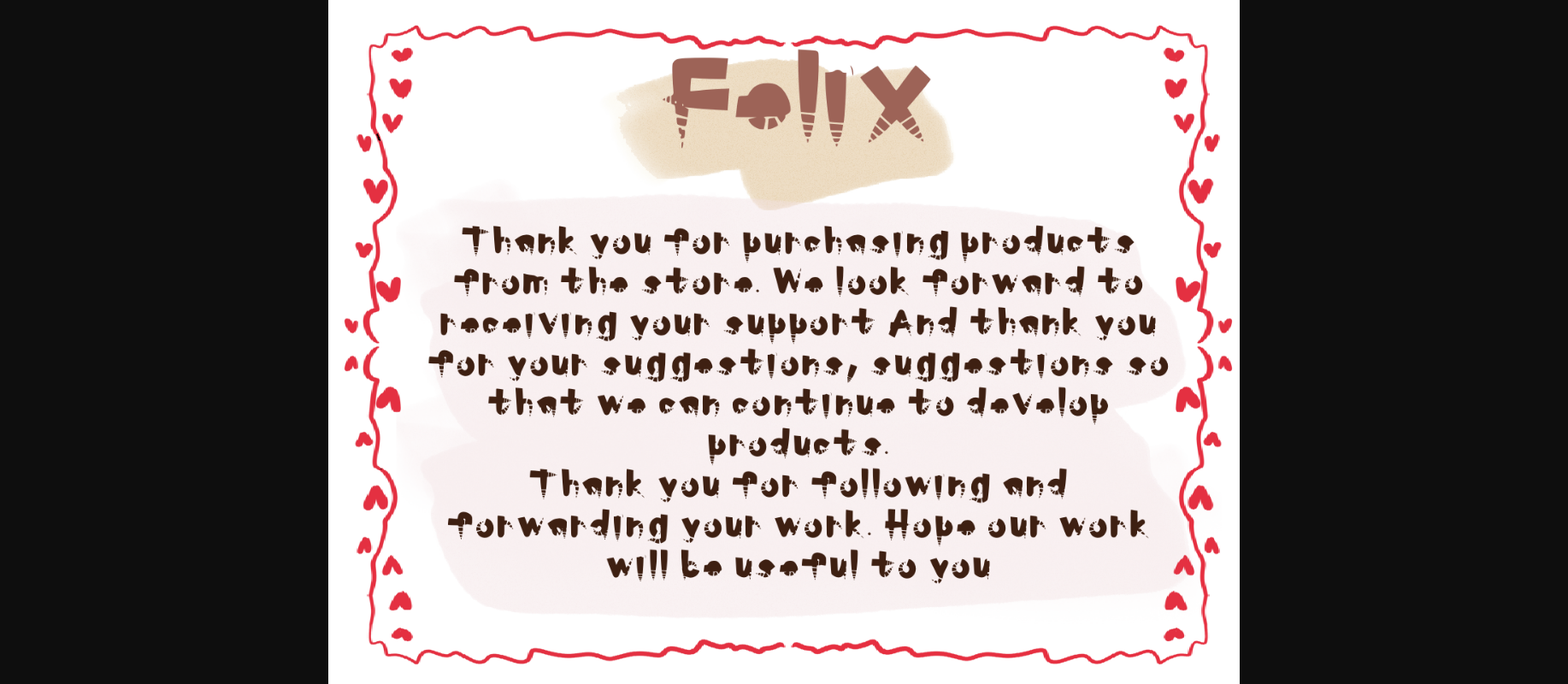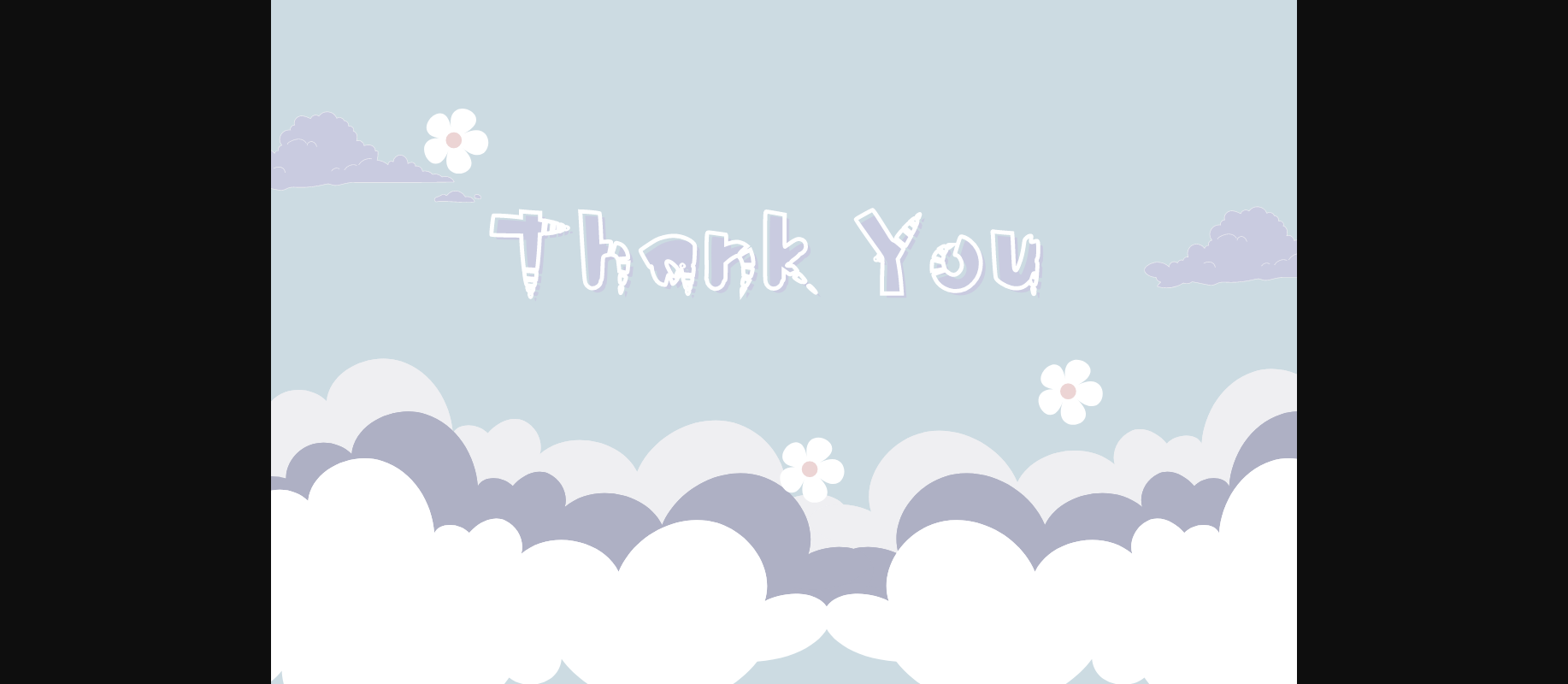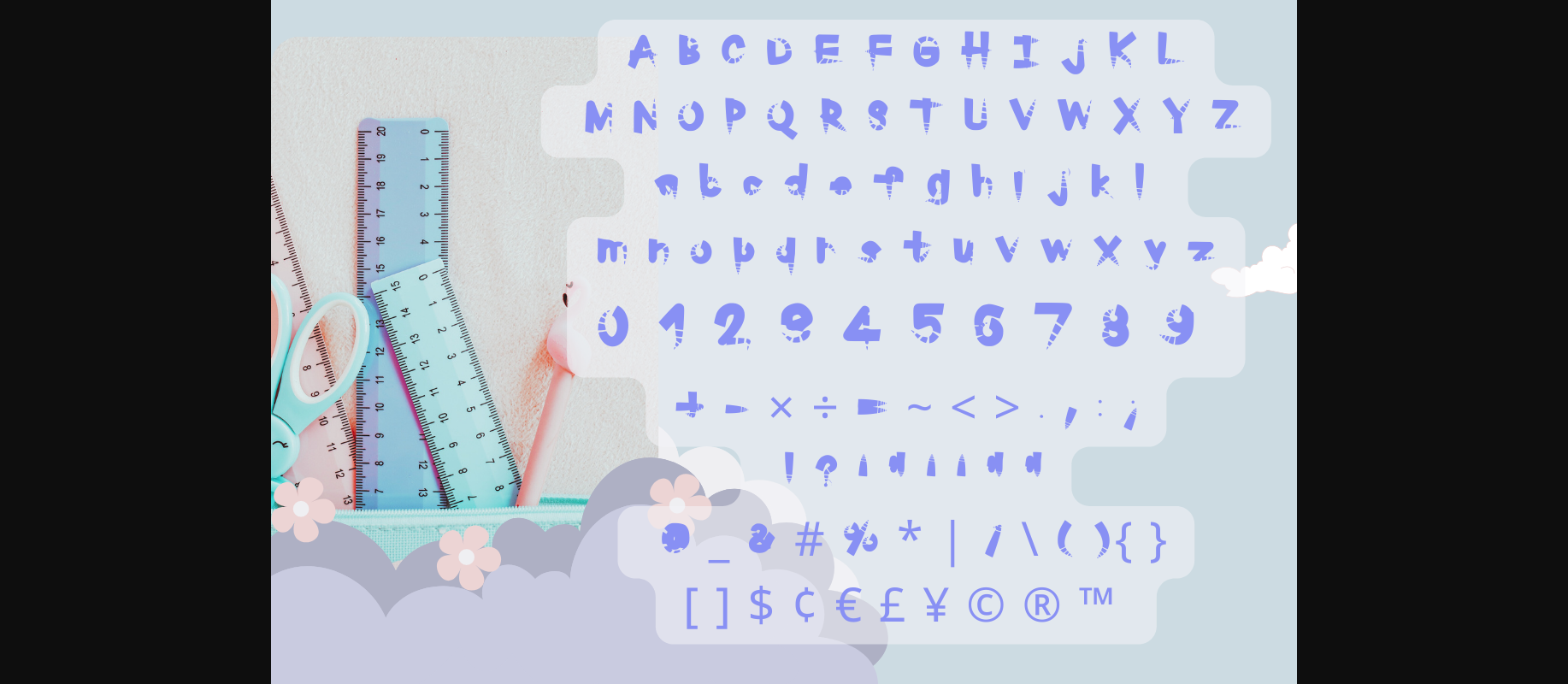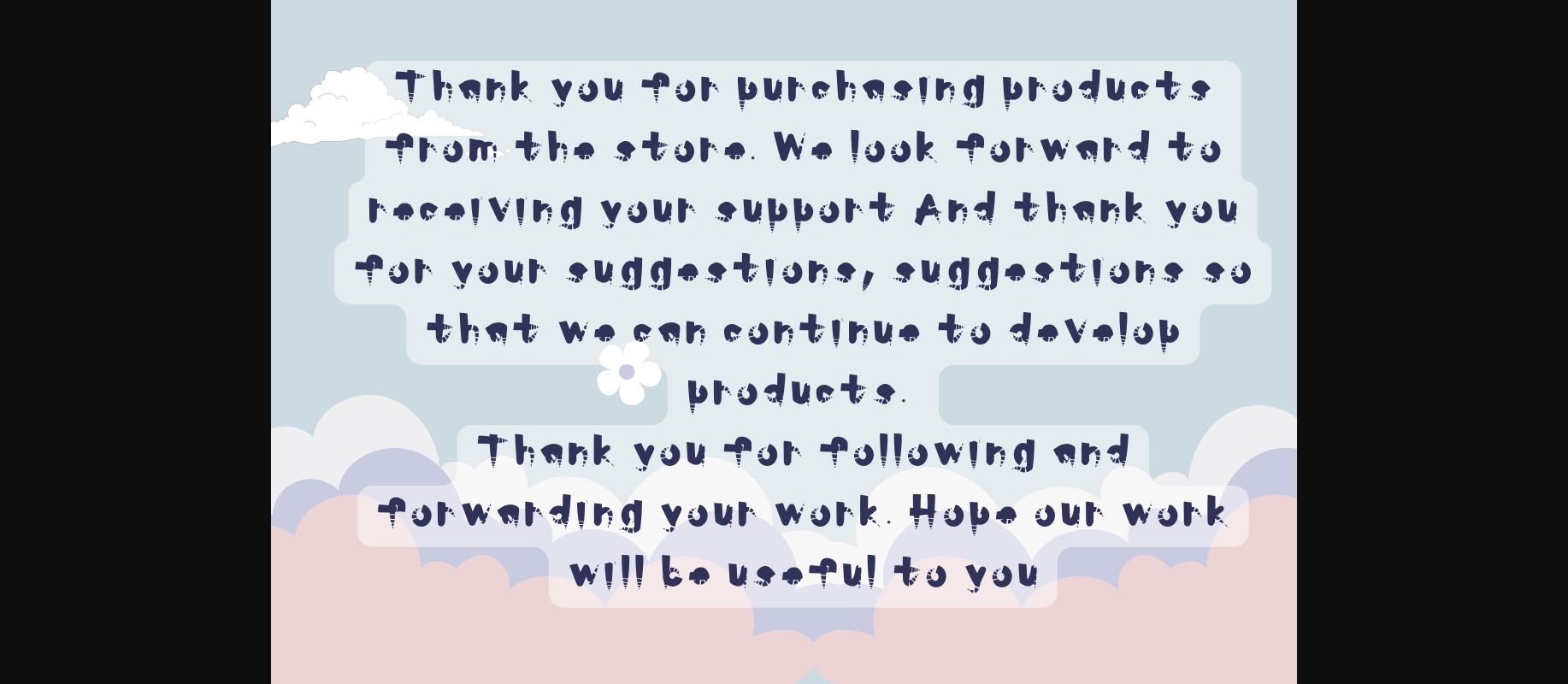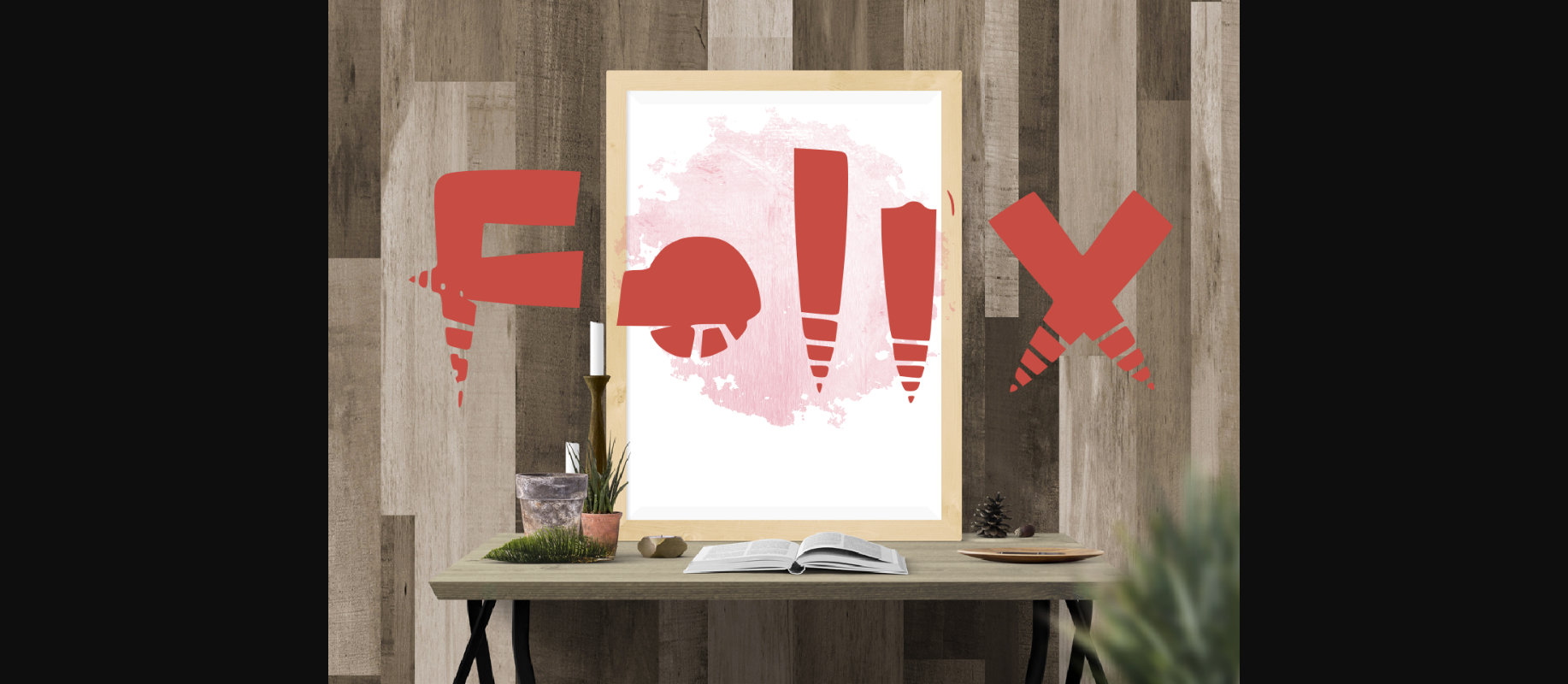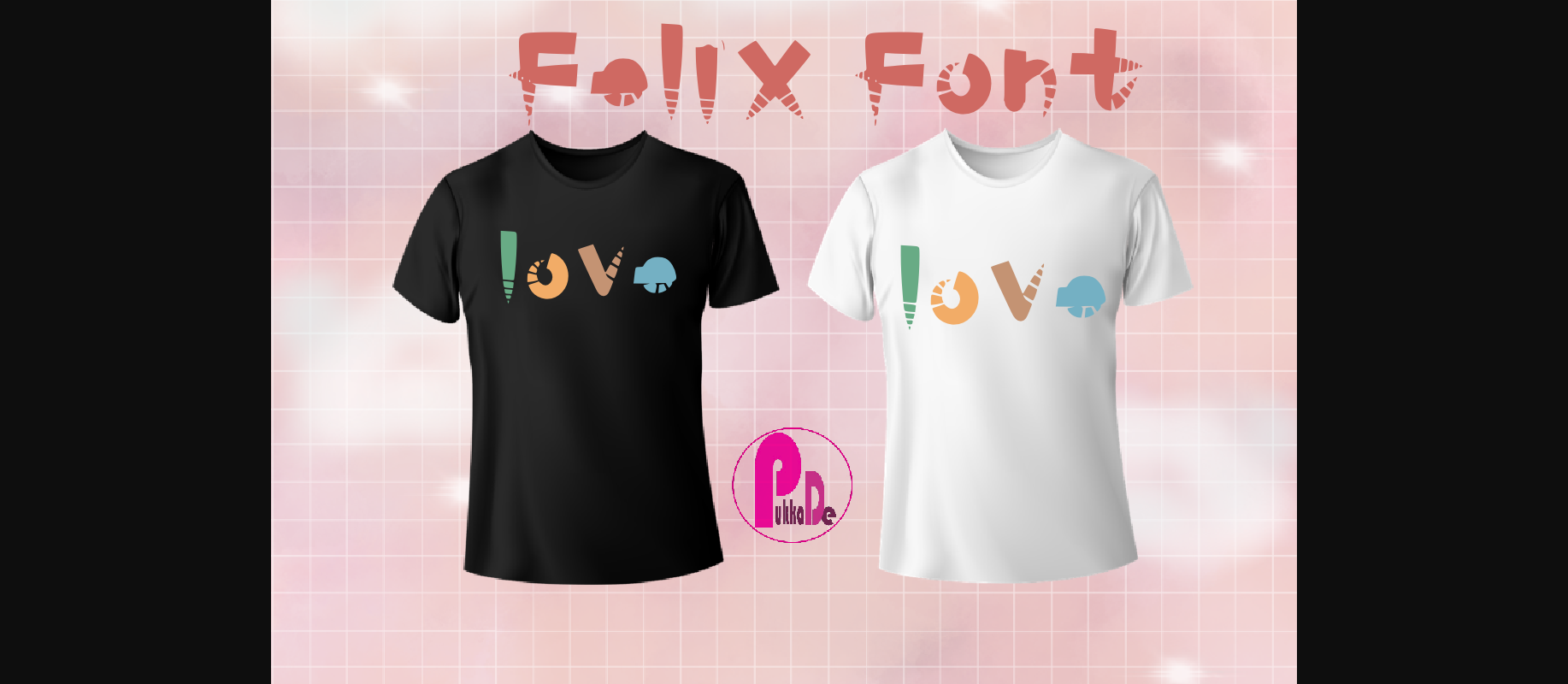
HomeDecorative FontsFelix Font Decorative Fonts Felix Font FacebookXPinterestWhatsApp 1 of 10 ... Felix Font Poster 2... Felix Font Poster 3... Felix Font Poster 4... Felix Font Poster 5... Felix Font Poster 6... Felix Font Poster 7... Felix Font Poster 8... Felix Font Poster 9... Felix Font Poster 10... About Felix Font Felix is a quirky and bold decorative font designed to make your creations look different! Use it to add a special look to branding projects, product packaging, posters, banners, and others. DOWNLOAD NOW People also explored Blind Night Font The Bocone Font Passionate Message Font Misthic Font Realistic Mock-ups on Vintage Background Cherry Caramel Font Sweet Sugar Font Black Tea Font Spunky Font 363 0 TagsFelixFelix Font Previous articleMagnolia Mandala Monogram FontNext articleLittle Unicorn Font LEAVE A REPLY Cancel reply Comment: Please enter your comment! Name:* Please enter your name here Email:* You have entered an incorrect email address! Please enter your email address here Website: Save my name, email, and website in this browser for the next time I comment. Personal Use Free Critical Personal Use Free Read more about this font Cosmos Personal Use Free Read more about this font Baveuse Personal Use Free Read more about this font England Personal Use Free Read more about this font BLOG How to Cut Any Font on Cricut: Convert a Font to SVG (Free) Turn any font into a clean SVG so it cuts crisp on Cricut - a quick 3-step workflow using a free font-to-SVG tool. Where to Buy American Fonts Online in 2024 Using Fonts in Digital Marketing: Tips to Strengthen Your Brand Identity 5 Fonts That Will Dominate Design Trends in 2026